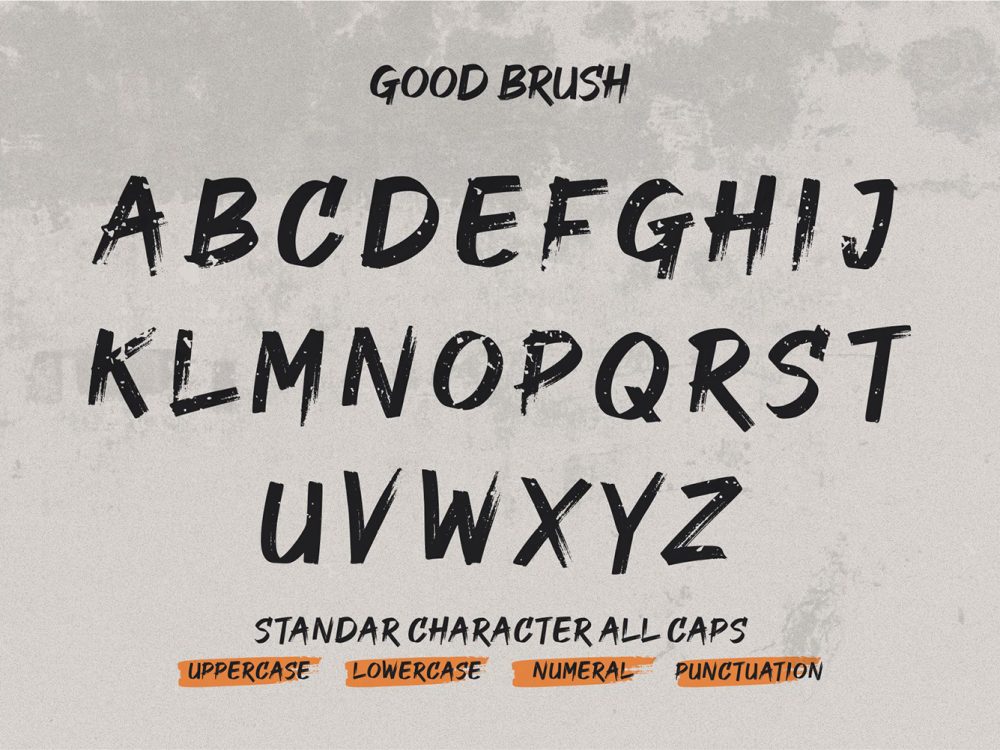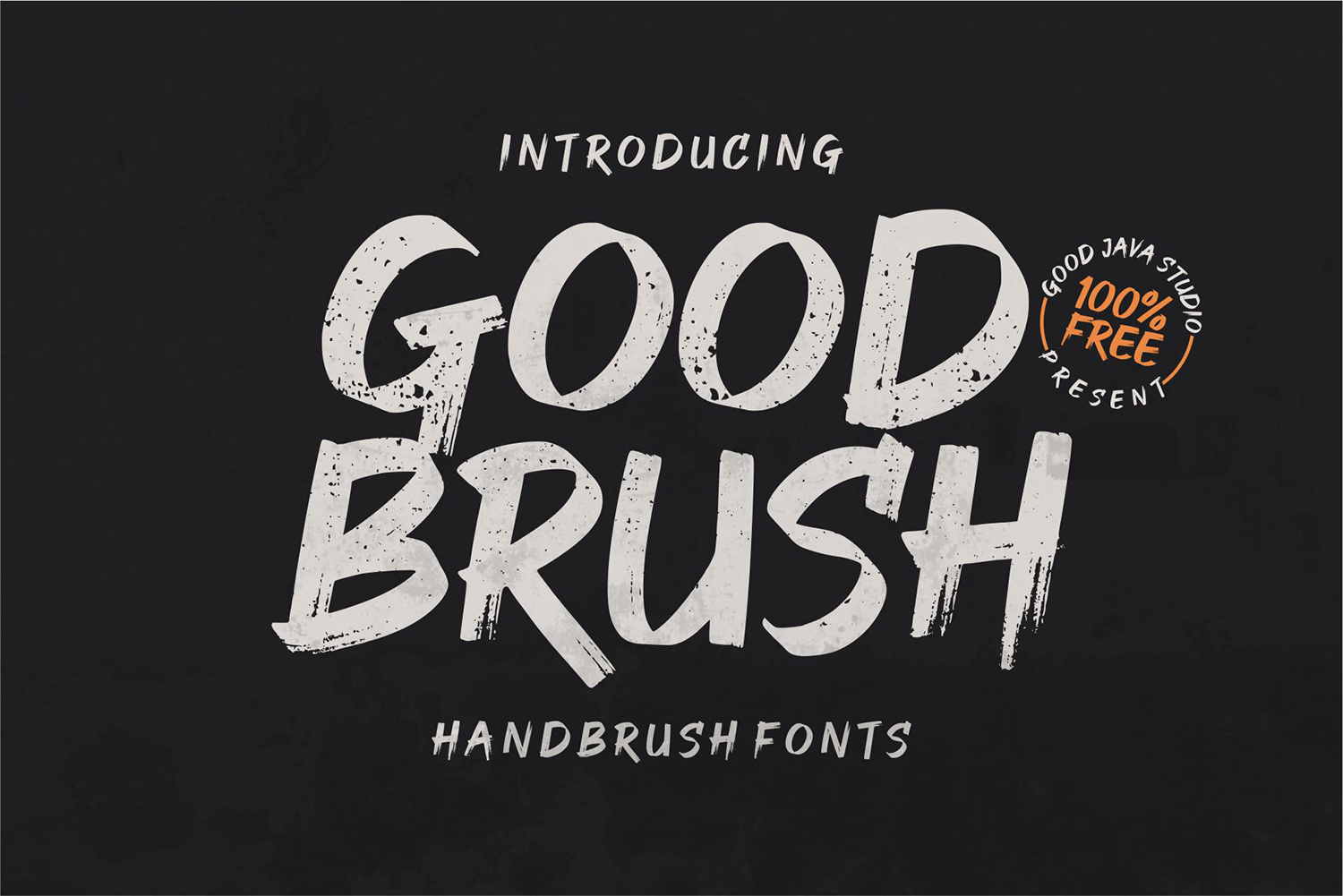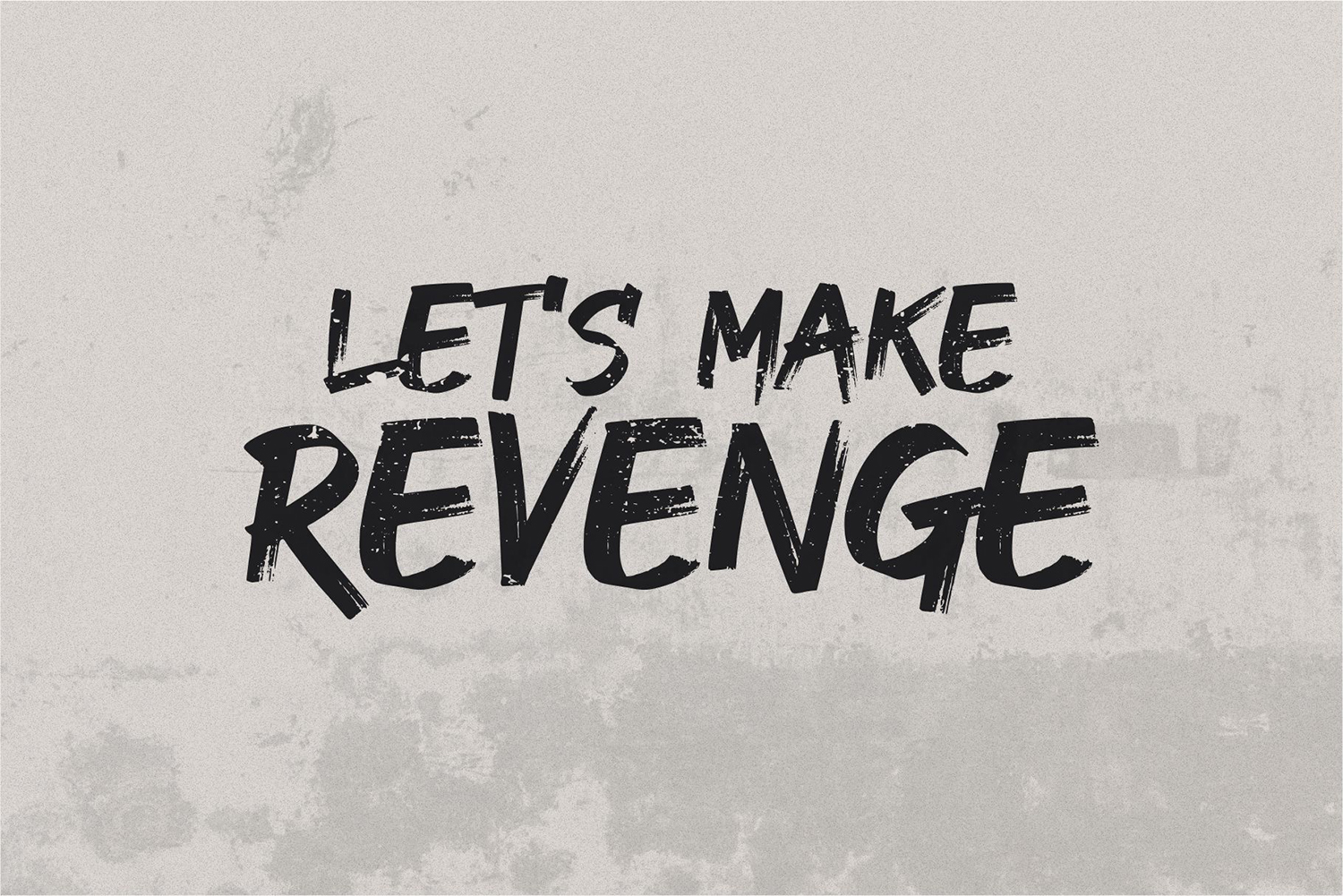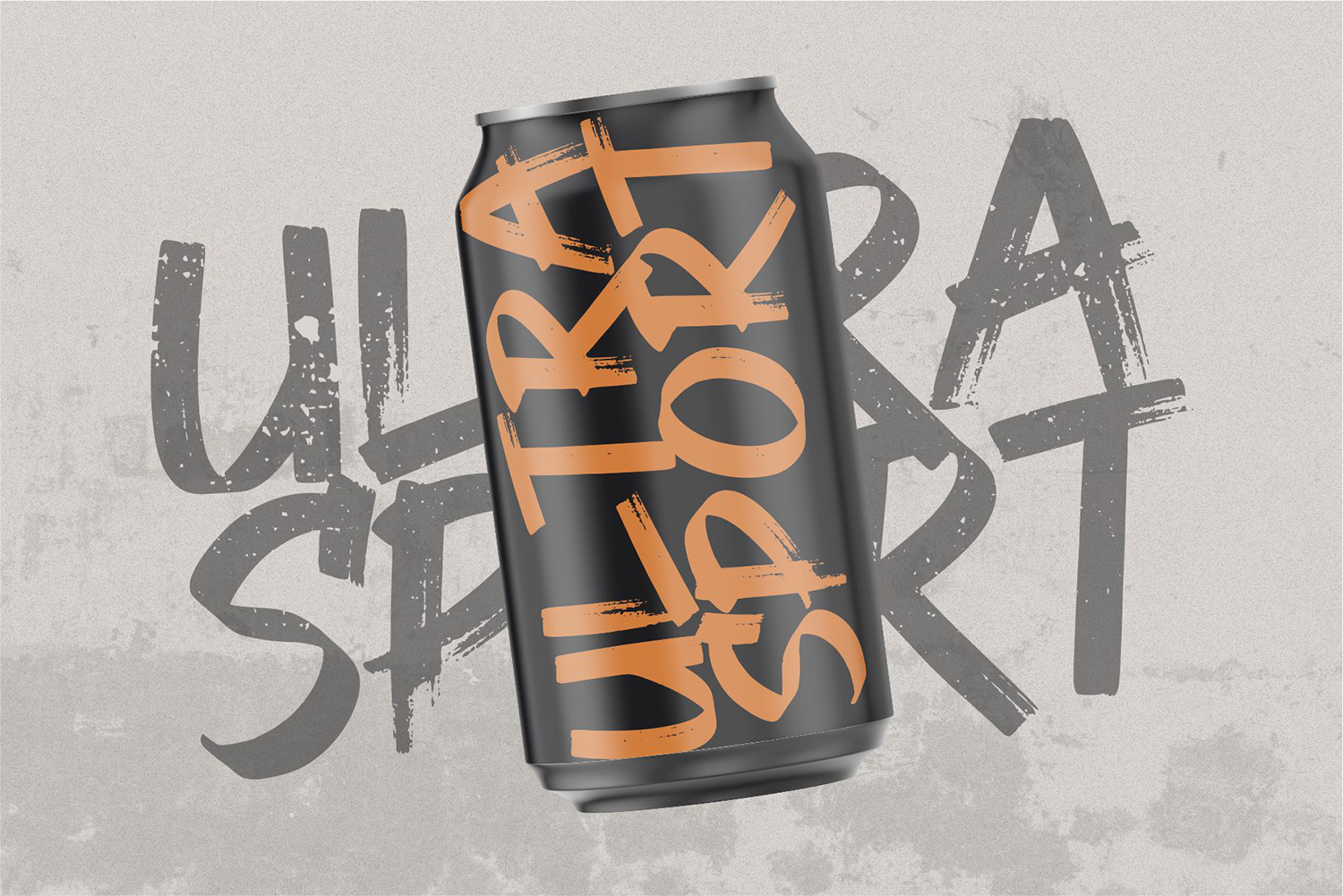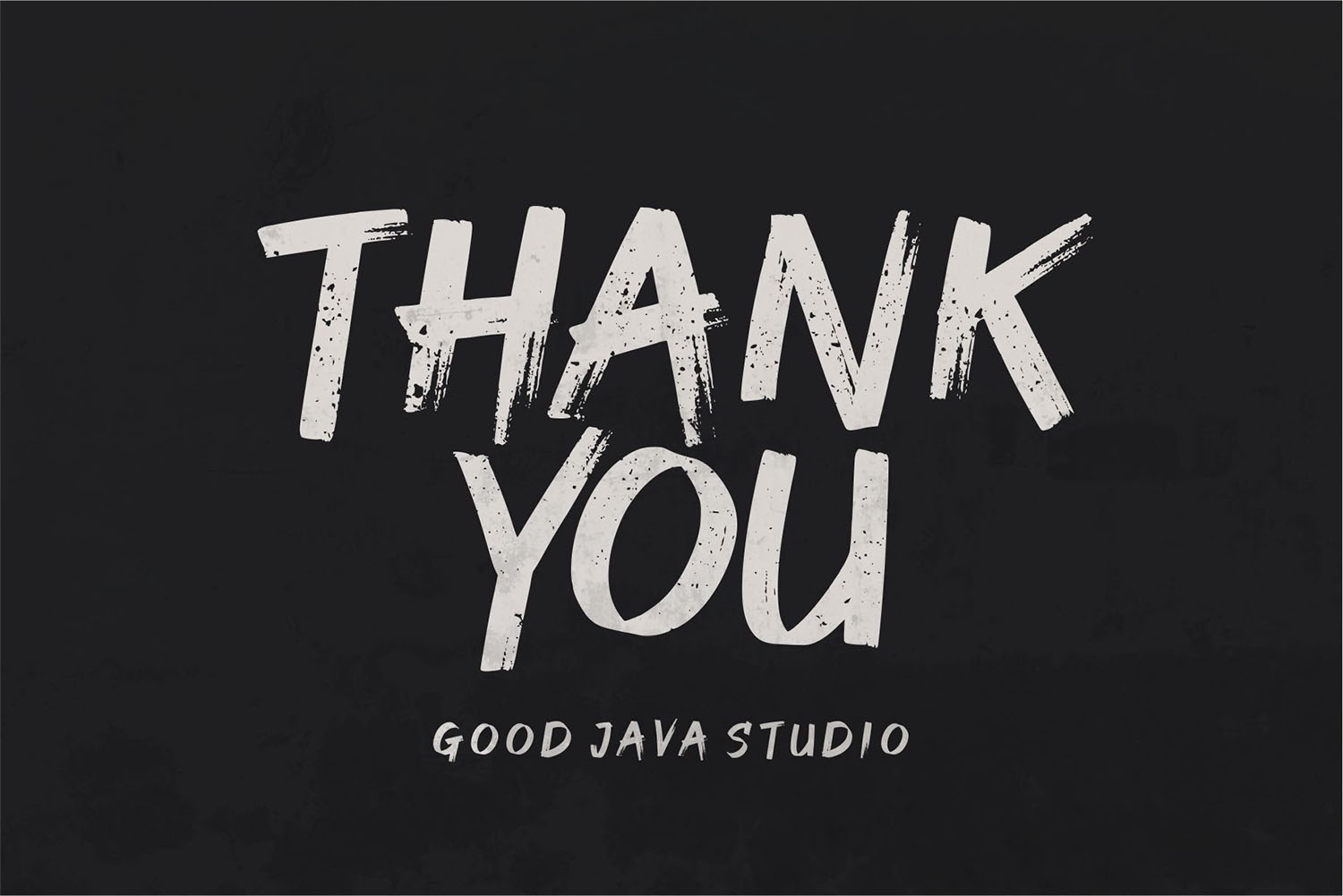
Good Brush Free Font
Good Brush Free Font is a stylish handwritten typeface that mimics a brush style with an elegant calligraphic style. This font is free for personal and commercial use and will help you create unique design projects and improve your professional level. Use this font to create memorable posters, wedding invitations, cards, branding, flyers, and more. Improve the quality and increase the popularity of your design projects by using this font.
Author: Good Java